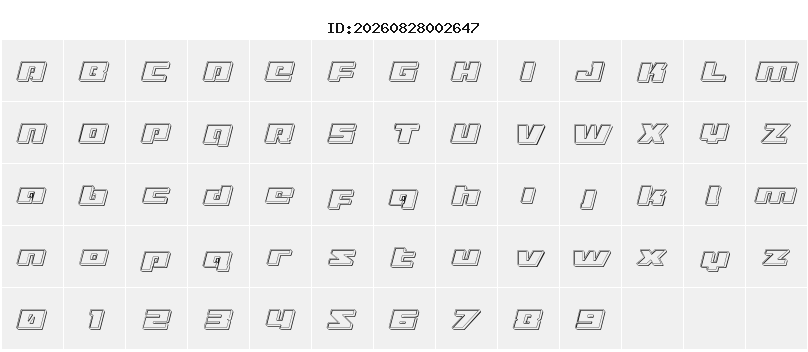
Turbo Charge Engraved Italic Preview
• Font Name: Turbo Charge Engraved Italic
• Full Font Name: Turbo Charge Engraved Italic
About Turbo Charge Engraved Italic.ttf
Turbo Charge Engraved Italic.ttf is a modern, elegant sans-serif font designed for ultimate readability and visual harmony. Perfect for branding, headlines, web design, and print materials.